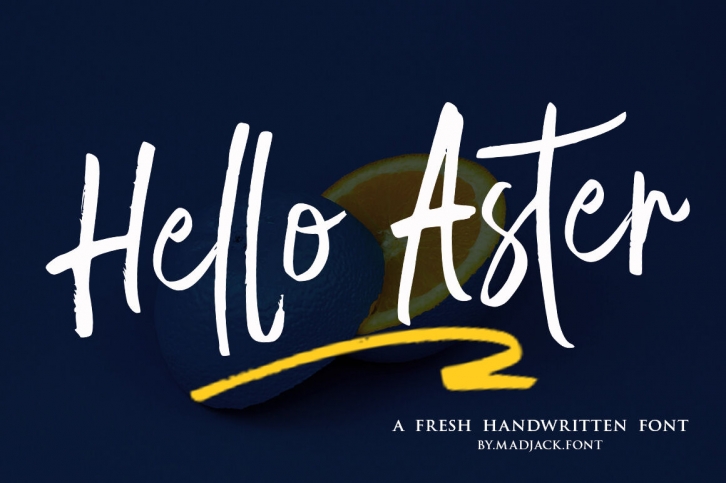
INTRODUCING "Hello Aster Script!" A new font brushed textured with Perfect, also equipped with additional swash. Perfect for brand projects, logos, product packaging, posters, invitations, greeting cards, news, blogs, all including personal charm. These include (OTF and TTF):